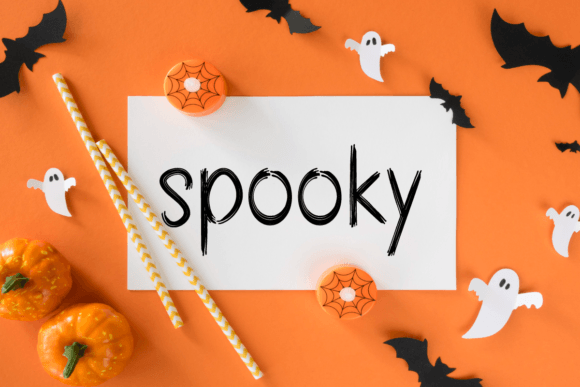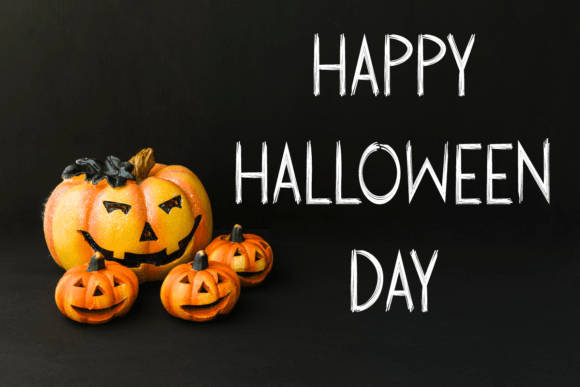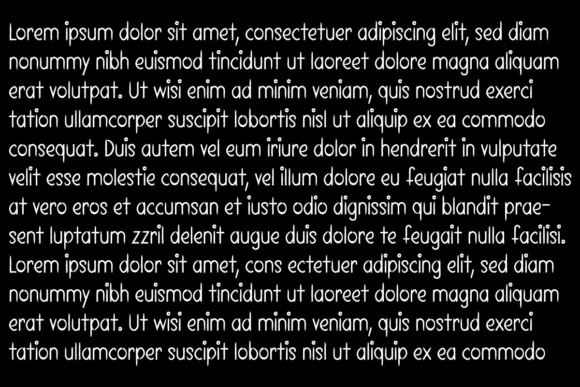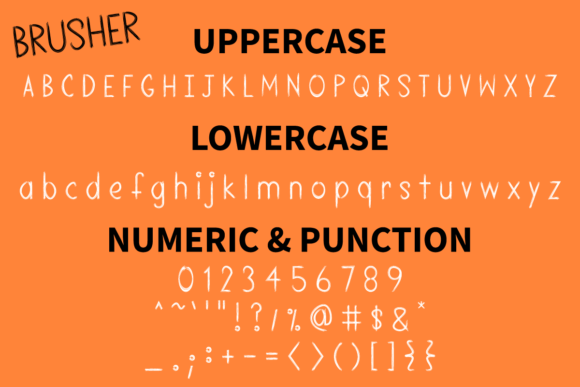
Introducing Brusher Font: The Fun and Friendly Handwritten Font
Are you tired of using the same old fonts in your designs? Do you want to add a touch of whimsy and personality to your projects? Look no further than Brusher Font, a fun and friendly handwritten font that’s perfect for designers and crafters alike. In this article, we’ll take a closer look at Brusher Font, its features, and how you can use it to elevate your designs.
What is Brusher Font?
Brusher Font is a handwritten font that’s designed to bring a smile to your face. It’s whimsical, a bit quirky, and perfect for adding a personal touch to your designs. With its unique and playful style, Brusher Font is sure to brighten up any project, from logos and wedding invitations to quotes, advertisements, and more.
Key Features of Brusher Font
- Handwritten style: Brusher Font has a genuine handwritten feel that’s perfect for creating personal and relatable designs.
- Whimsical and quirky: This font has a playful personality that’s sure to add a touch of fun to your designs.
- Versatile: Brusher Font is perfect for a wide range of projects, from logos and branding to wedding invitations, quotes, and more.
- Easy to read: Despite its playful style, Brusher Font is easy to read and understand, making it perfect for body text and headlines.
Uses for Brusher Font
Brusher Font is a versatile font that can be used in a variety of projects, including:
- Logos and branding: Create a unique and memorable logo for your business or brand with Brusher Font.
- Wedding invitations: Add a touch of whimsy and romance to your wedding invitations with Brusher Font.
- Quotes and posters: Create inspiring and eye-catching quotes and posters with Brusher Font.
- Advertisements: Use Brusher Font to create fun and engaging advertisements that stand out from the crowd.
- Print and magazines: Add a personal touch to your print designs, including magazines, brochures, and more.
Why Choose Brusher Font?
So why choose Brusher Font over other fonts? Here are just a few reasons:
- Unique style: Brusher Font has a unique and playful style that’s sure to set your designs apart.
- High-quality: Brusher Font is a high-quality font that’s designed to produce crisp and clear results, even at small sizes.
Tips for Using Brusher Font
Here are a few tips for getting the most out of Brusher Font:
- Use it sparingly: Brusher Font is a bold and playful font, so use it sparingly to avoid overwhelming your designs.
- Pair it with other fonts: Brusher Font pairs well with other fonts, so don’t be afraid to experiment with different combinations.
- Experiment with colors: Brusher Font looks great in a variety of colors, so don’t be afraid to experiment and find the perfect color for your design.
In conclusion, Brusher Font is a fun and friendly handwritten font that’s perfect for designers and crafters alike. With its unique and playful style, Brusher Font is sure to brighten up any project and add a touch of personality to your designs. Whether you’re creating logos, wedding invitations, quotes, or advertisements, Brusher Font is a great choice. So why not give it a try and see the difference it can make in your designs?